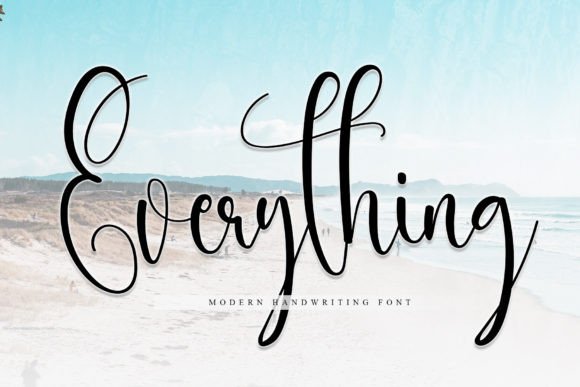
Step into the enchanting realm of Everything Font, a script font family that captivates hearts with its graceful strokes and timeless charm. Designed by the renowned YanStudio, Everything Font is a symphony of flowing lines and elegant curves, ready to transform your creative visions into breathtaking realities.
Unleash your imagination and let Everything Font guide you through a world of possibilities. Craft stunning wedding invitations, breathe life into heartfelt love letters, and design enchanting posters that leave an indelible mark. Its versatility knows no bounds, extending to logos, branding projects, and social media graphics that radiate sophistication and elegance.
With Everything Font, every letter dances across the page like a delicate ballet, evoking emotions and capturing attention. Its intricate details and whimsical flourishes add a touch of magic to your designs, turning ordinary words into captivating expressions of art.
Immerse yourself in a world of elegance and grace with Everything Font. Let it be your muse as you create designs that resonate with your audience, leaving them spellbound by your creative genius. Embrace the beauty of timeless typography and elevate your projects to new heights with Everything Font.
Fall in love with the timeless beauty and enchanting charm of Everything Font. Discover the endless possibilities that await you as you unleash your creativity and craft designs that leave a lasting impression. Let Everything Font be your guide on this extraordinary journey of self-expression and artistic brilliance.